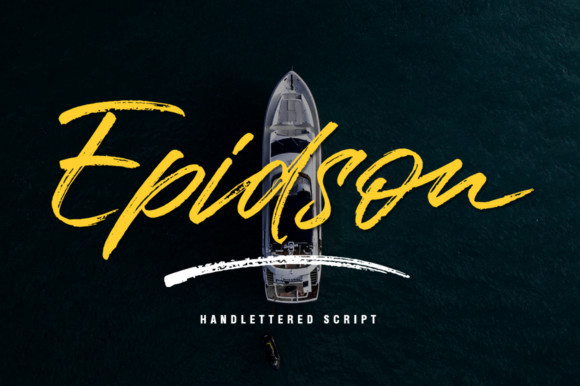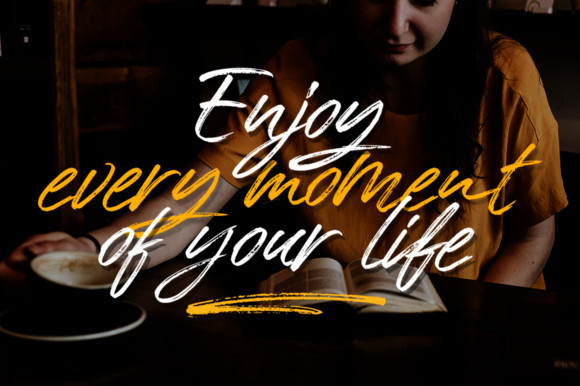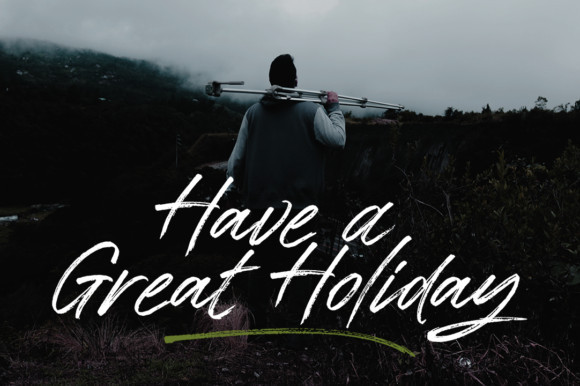
Epidson Font
Epidson is a rough brush script font with a clear style and dramatic movement. This font is great for your next creative projects, including logos, printed quotes, invitations, cards, product packaging, headers, logos, letterheads, posters, clothing designs, labels, and much more!